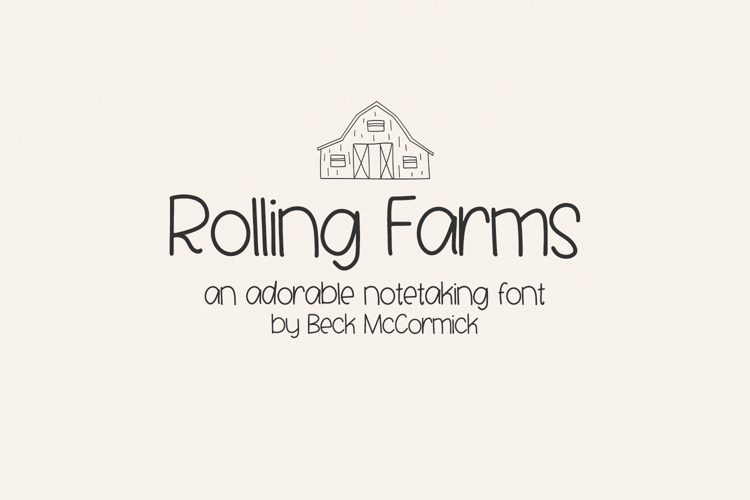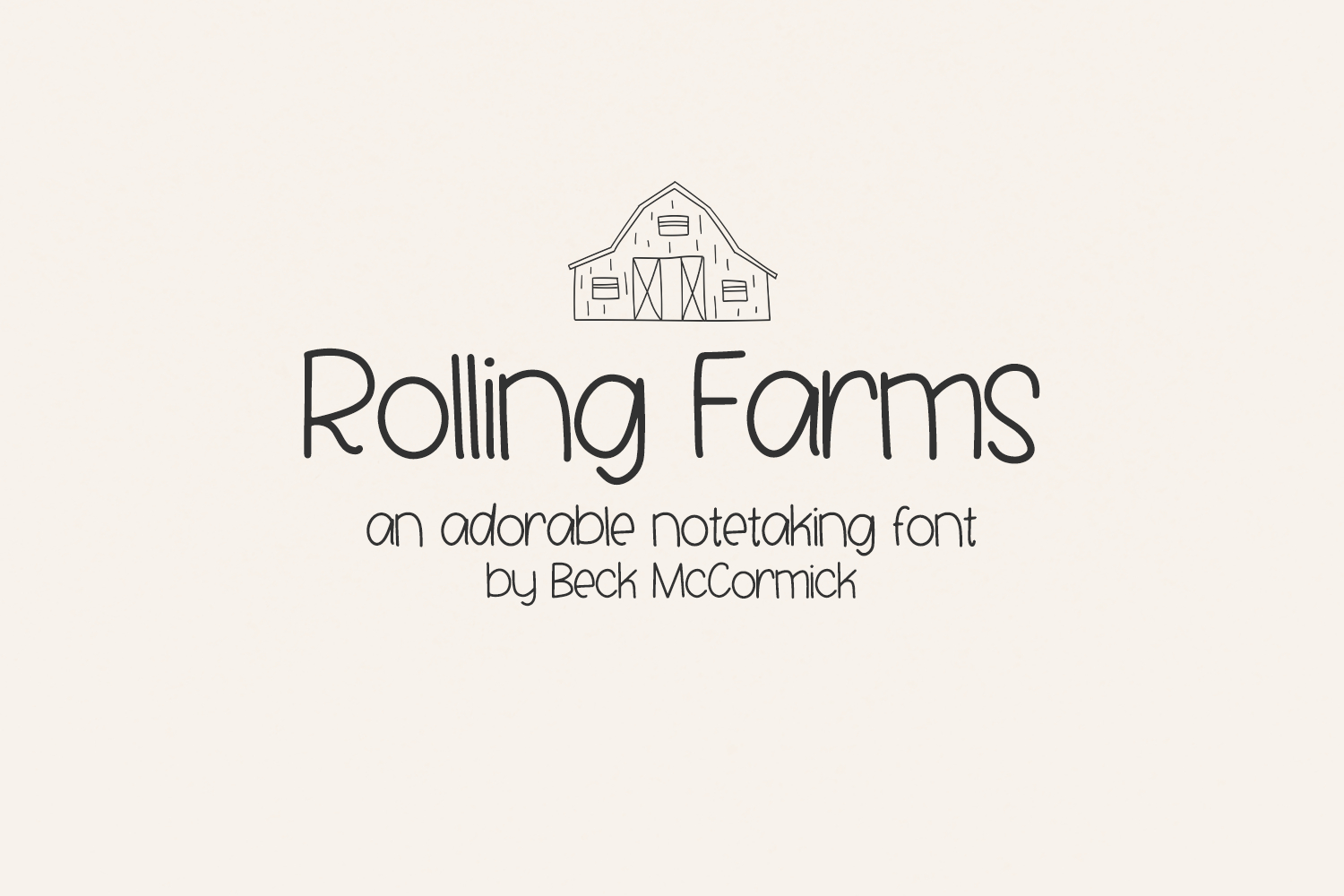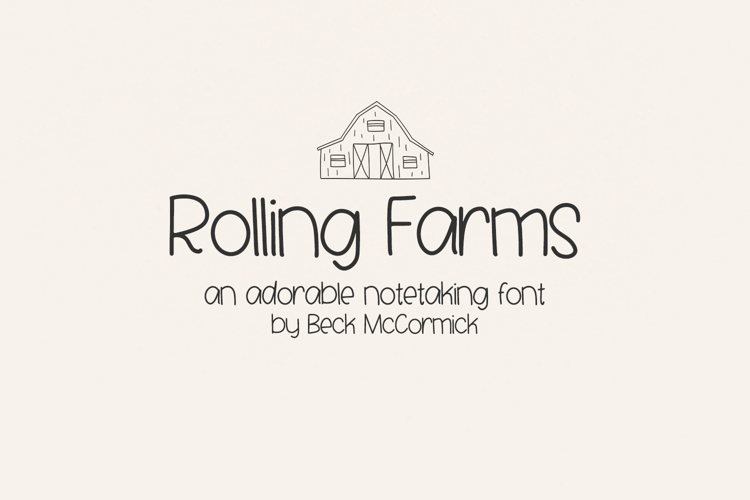
Rolling Farms Sans is a neat & tidy hand lettered font. It’s the perfect fit for your digital planner or note-taking app, and is super legible. Rolling Farms will be a great fit for your cute home decor projects, your Cricut or Silhouette machine, or logo & branding projects, as well as social media or marketing graphics. This font would also be a great fit for teachers - it’s legible for young students to read, and also a great guide for penmanship practice.